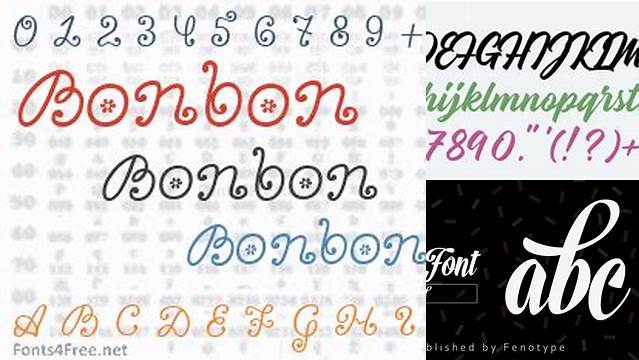
Get Madame Bonbon Font For Free: Download & Guide
Hey everyone! Are you looking to add a touch of sweetness and vintage charm to your designs? Then you're probably eyeing the Madame Bonbon font! It's a delightful typeface, perfect for everything from branding to social media graphics. And guess what? You can often get a Madame Bonbon font free download. Let's dive into how you can snag this lovely font and how to make the most of it. Finding a Madame Bonbon font free download isn't always as straightforward as a simple Google search. You'll encounter many websites offering it, but it's crucial to ensure you're downloading from a legitimate and safe source to protect your computer from malware and viruses. We'll cover the best places to find this gem safely, plus tips on using it to make your designs pop. When searching for a Madame Bonbon font free download, always prioritize reputable font websites. These sites typically have systems in place to scan files for security threats, providing you with a safer experience. Avoid downloading from suspicious sites with lots of pop-up ads or that look unprofessional. Your computer will thank you! Also, remember to check the licensing agreement associated with the font, even when obtaining a free download. Some free fonts are only for personal use, and if you plan to use them commercially (e.g., for a business logo or marketing materials), you may need to purchase a commercial license. It's always better to be safe than sorry!
Tips for Designing with Madame Bonbon
Now that you've got the Madame Bonbon font installed and ready to go, let's talk about how to make the most of it in your designs. This font is fantastic for creating a vintage, feminine, or playful aesthetic. Think about using it for branding, social media graphics, invitations, and even website headers. The Madame Bonbon font adds a unique touch that can set your design apart. Experiment with different color palettes to see how the font looks with varying backgrounds and shades. The choice of color can dramatically influence the mood of your design. For example, pairing it with pastel colors can create a soft, romantic feel, while bolder colors can give it a more energetic vibe. Also, consider the overall design. Use the Madame Bonbon font in headlines or prominent text elements to draw attention. Always combine it with other fonts for body text to ensure that the design is easy to read and balanced. Experiment with different sizes and spacing to improve visual appeal. If you are working on a logo, the font works wonders. Make sure your logo is timeless, and the design is neat and tidy. For the best results, use it in moderation.
Color Palettes and Font Pairings
Color palettes and font pairings are like the secret sauce for amazing design. When using the Madame Bonbon font, the right color palette can really make it shine. For a vintage look, try pairing the font with soft pastels or muted tones. Think blush pinks, mint greens, and creams. These colors create a sense of nostalgia and elegance, which complement the font's style. For a more modern feel, you can combine the Madame Bonbon font with bolder colors, such as deep blues or rich burgundies, to create a visual contrast that makes the font stand out. Also, think about using the font with complementary fonts. If you want to use the Madame Bonbon font for headings, consider pairing it with a clean, readable sans-serif font for body text. This will ensure that your content is easy to read. Another option is to use the Madame Bonbon font for short phrases or quotes and a more neutral font for the rest. This creates a nice balance and makes your design look very appealing. The combination of font styles will enhance your design and make it more attractive.